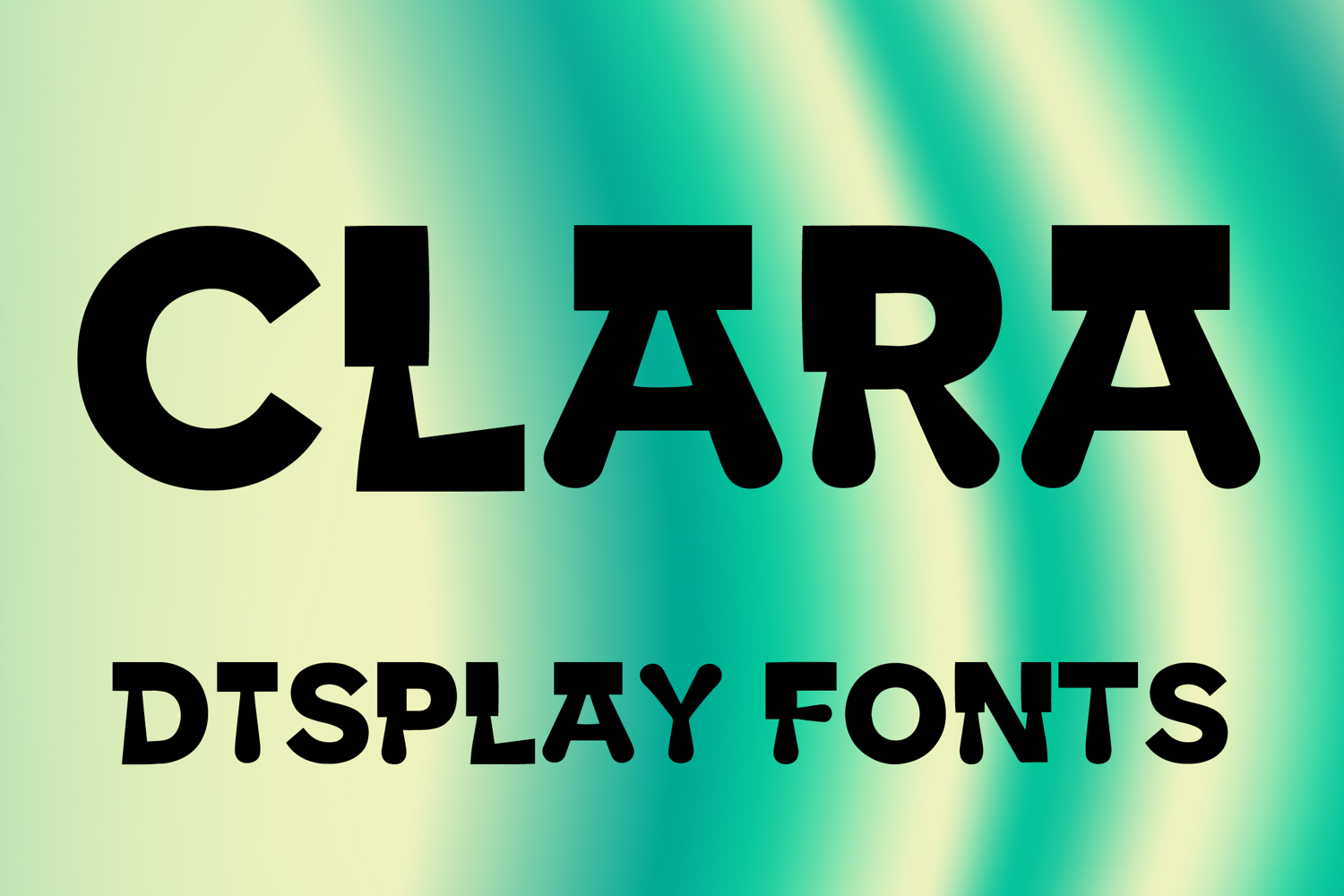
CLARA
CLARA-Regular
CLARA is a bold display font with a playful geometric style and strong modern charm. Its uppercase letterforms feature thick strokes, rounded edges, and sturdy structured shapes that create a fun, confident, and eye-catching look. Designed with uppercase letters A–Z and numbers 0–9, CLARA is perfect for branding, posters, packaging, logos, headlines, social media graphics, and creative projects that need a bold and memorable statement
CLARA